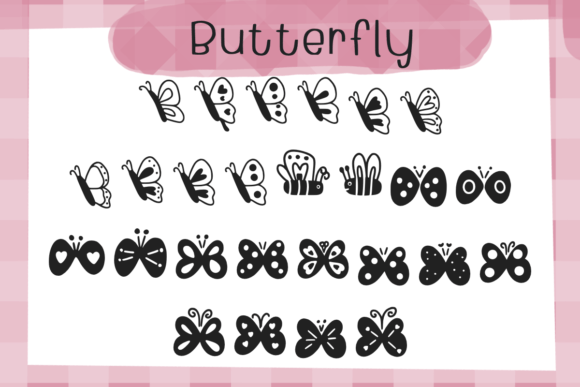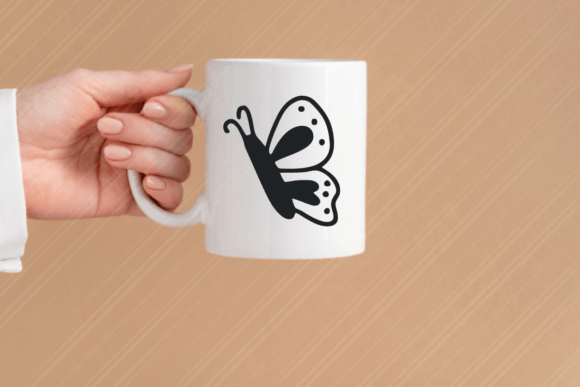
Unlock Your Creativity with the Butterfly Font
Have you ever sat at your desk, staring at a blank sheet of paper or a blank computer screen, feeling like your creative well has run dry? It’s a feeling we’ve all been there, and it’s exactly what inspired us to dive into the wonderful world of fonts. One that has captured our hearts is the delightful Butterfly Font, a charming hand-drawn dingbats font that’s sure to bring a smile to your face.
This adorable font is perfect for adding a touch of whimsy to your creative projects, from planners and crafting to digital designs and presentations. Its versatility and charm make it a valuable addition to any designer’s toolkit. Whether you’re a seasoned pro or just starting out, the Butterfly Font is sure to inspire your next creative masterpiece.
- Unique Characteristics: The font features a unique, hand-drawn design with a whimsical and playful feel, making it ideal for use in creative and artistic applications.
Butterfly Font Review
As a designer, I’ve had the chance to work with various fonts, and Butterfly Font is one of the more unique ones I’ve come across.
- Quirky and whimsical feel: The Butterfly Font has a playful, carefree vibe that can add a touch of personality to any design.
- Good for branding: Its distinctive style can make a brand stand out, especially for companies that want to convey a sense of creativity and imagination.
- Works well in digital media: The font is highly legible on screens, making it suitable for websites, social media, and other digital applications.
- Limited versatility: While the font’s unique style can be an asset, it may not be suitable for formal or professional designs where a more traditional font is preferred.
- May not be readable in smaller sizes: The font’s ornate details can make it harder to read in smaller font sizes, which may limit its use in certain contexts.
Overall, the Butterfly Font is a great choice for designers who want to add a touch of whimsy to their designs. While it may not be the best fit for every project, its unique style and versatility make it a valuable addition to any font collection.
To get the most out of Butterfly Font, use it in combination with other creative elements such as watercolor effects, floral patterns, or whimsical illustrations. You can also experiment with different font sizes, colors, and styles to create a unique visual identity.
Butterfly Font is ideal for use in wedding invitations, children’s party decorations, and other whimsical designs. It can also be used in branding and marketing materials for businesses with a playful or creative identity.